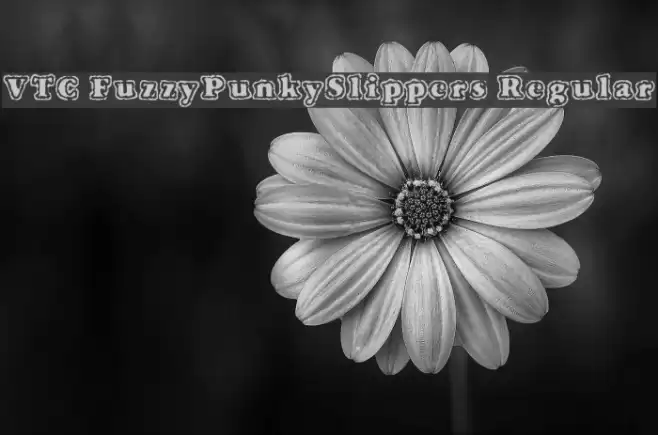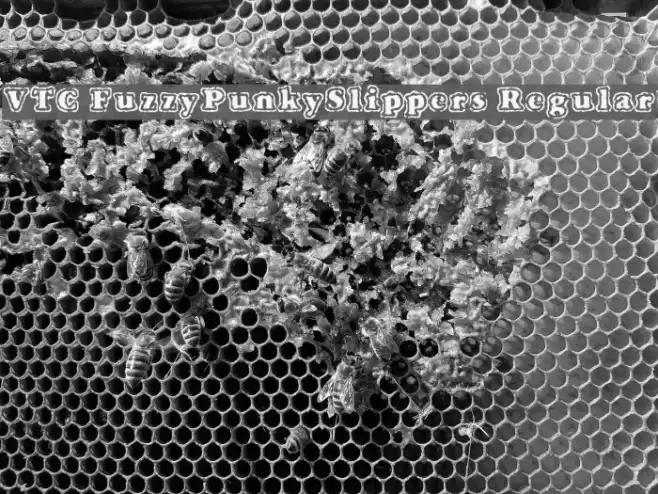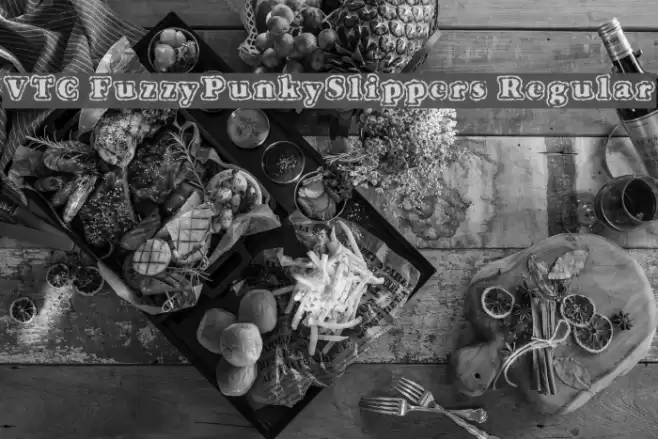
VTC FuzzyPunkySlippers Regular Font
VTC FuzzyPunkySlippers Regular Description
This font features a bold, playful design with a fuzzy, textured outline that gives it a unique, punk-inspired appearance. The characters are heavily stylized with a distressed look, making them stand out with a rugged charm. Each letter and number is surrounded by a thick, irregular border that adds to the font's distinctive personality. The overall effect is both eye-catching and whimsical, perfect for projects that require a touch of rebellious flair. The font maintains legibility despite its decorative elements, ensuring it can be used effectively in various creative contexts.
A bold, textured font with a punk-inspired, distressed design from Uncategorized fonts.
- Proposed Projects: Ideal for music album covers, event posters, edgy branding, and creative social media graphics.